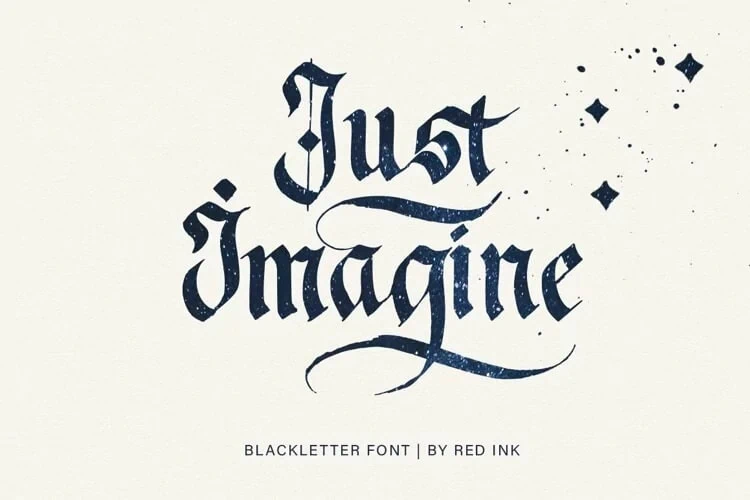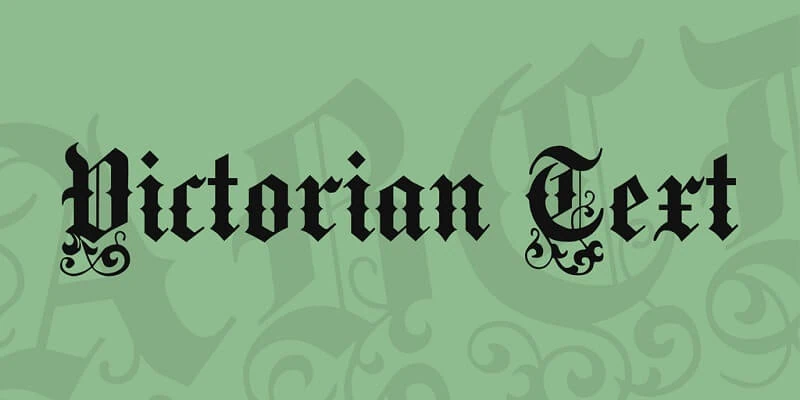
Are you looking for old english calligraphy fonts? Here are the best free and premium Old English / Gothic calligraphy fonts that’ll transport you to a bygone era.
Do you want to add a touch of vintage elegance to your designs? If so, then Old English calligraphy fonts are just what you need.
Old English fonts have been around for centuries and continue to be popular today because of their versatility. They are also referred to as blackletter or gothic fonts.
Whether you are designing for logos, invitations, tattoos, packaging, posters, or anything else that requires a touch of history and sophistication, read on to learn about the best Old English calligraphy fonts for your projects.
Best Old English Calligraphy Fonts
I spent hours testing the Old English / Gothic fonts in this list. So you can be sure that you’ll find the best font that’ll help you achieve the look you desire.
1. Stalber
Best Overall Old English Calligraphy Font
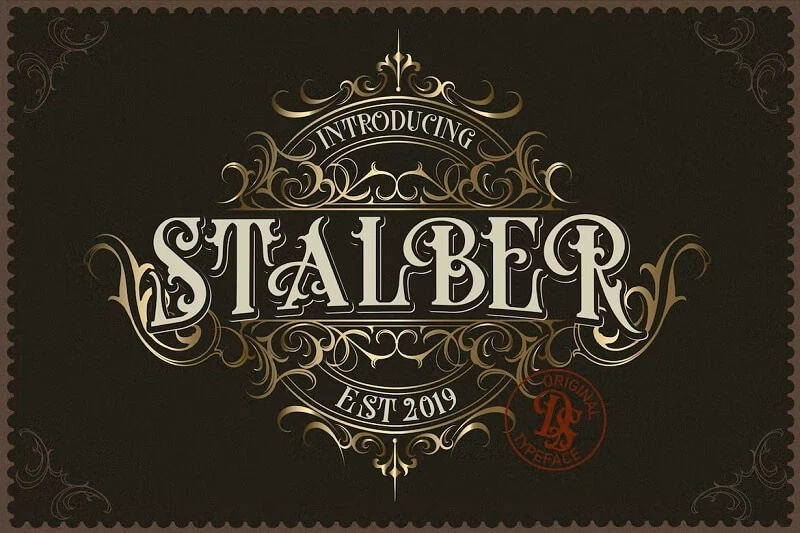
Stalber is an authentic blackletter font inspired by vintage signage and medieval decorative shapes.
The bold font has an old-fashioned charm that’ll make your designs stand out. It also includes ornaments that pair beautifully with the font.
If you want to evoke a sense of majesty in your design projects, the Stalber font is the number 1 choice.
2. Clockwork
Best Handwritten Old English Calligraphy Font
The Clockwork font is a handmade blackletter typeface combining modern and traditional typography. The stroke contrast and decorative alternates help you create classy designs for your digital and print projects.
3. Hero Beam Typeface
Best Victorian Calligraphy Font
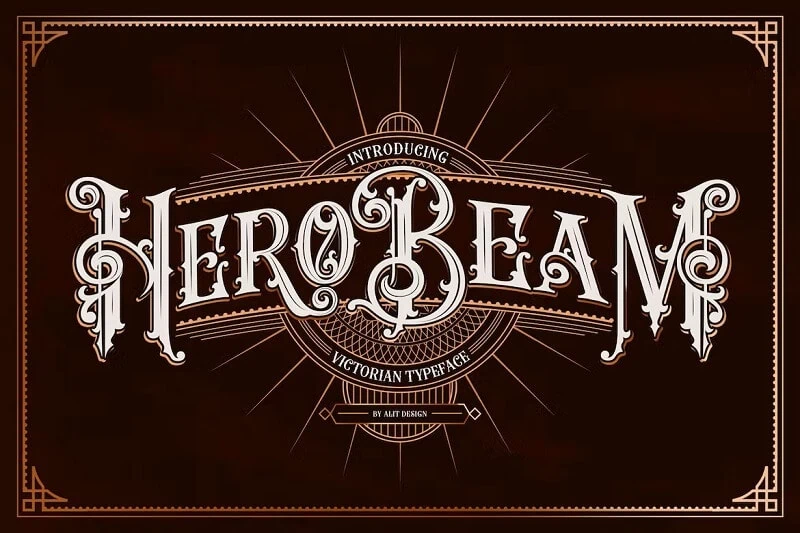
The Hero Beam font draws inspiration from the writing style of the European Empire era. The variety of stylistic alternates included in the font feature dramatic swashes and decorative terminals. So you can be sure to create captivating designs for any project.
4. Ghosthey
Best Fancy Blackletter Calligraphy Font
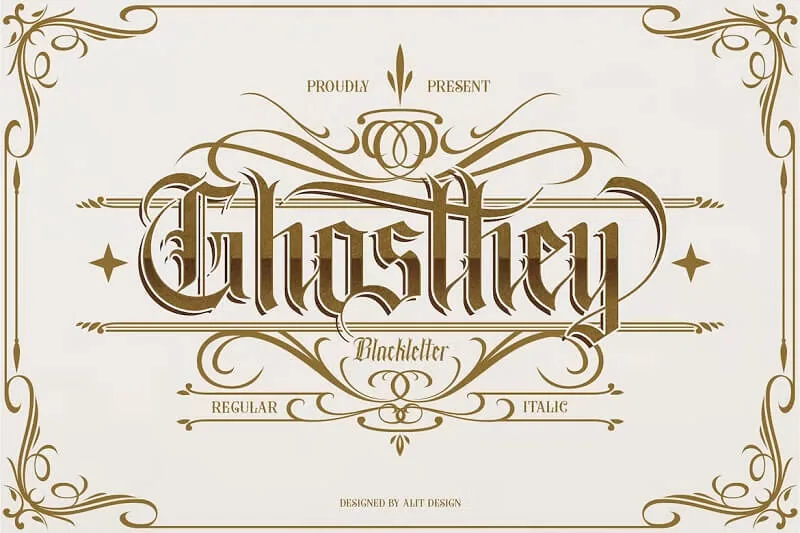
The fanciful yet strong letters of the Ghosthey font are perfect for creating distinctive designs. The blackletter typeface skillfully balances the old with the modern, so you can use it for any graphic design project, such as logos, music album covers, tattoos, and packaging.
5. Belligoes Blackletter
Best Old English Tattoo Calligraphy Font
If you are looking for a strong tattoo font that evokes a dark gothic aesthetic, then the Belligoes font is a fantastic option. It’s perfect for making logos and typography for tattoo artists and studios. The font also works excellently for vintage packaging designs.
6. The Bjorke
Best Modern Old English Calligraphy Font
Old English fonts are usually characterized by heavily stylized writing. But if you are looking for a legible and modern font, then The Bjorke font is perfect.
The thick strokes and elegant alternates of the calligraphy font are the best for creating unique logos, branding assets, book covers, and clothing designs.
7. Rusty Store
Best Elegant Gothic Calligraphy Font
Inspired by the calligraphy of the 1800s, the Rusty Store font is a fantastic option for creating charming designs. The dramatic curves of the serif font evoke a sense of tradition and royalty. Use the font for creating bold designs for your projects.
8. Brightos
Best Royal Old English Calligraphy Font
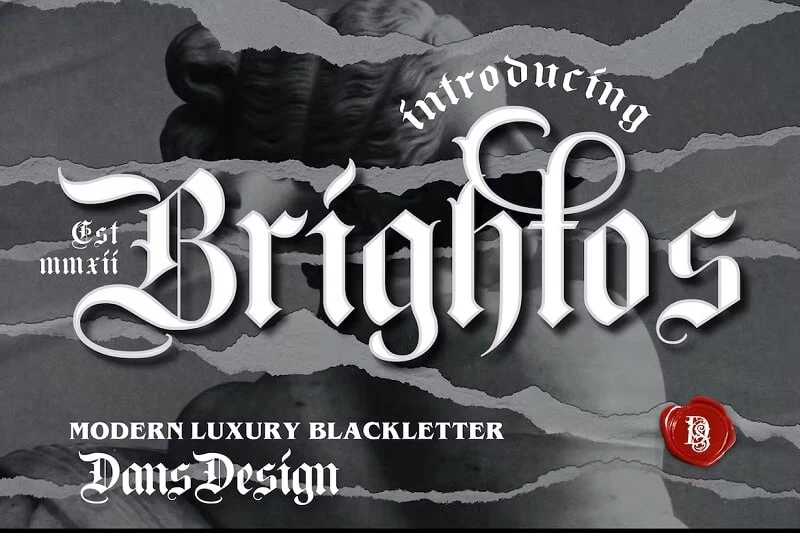
The Brightos font’s elegant strokes and gorgeous accents will elevate any project to the next level. It’s great for designing everything from product logos and business cards to packaging, and it is also suitable for making stylish tattoo designs.
9. Forges
Best Decorative Old English Calligraphy Font
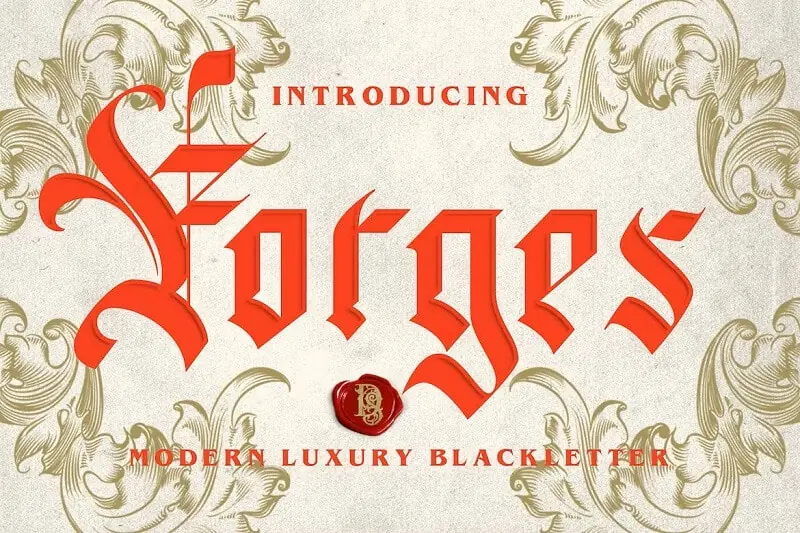
Does your project need to communicate a sense of majesty? Look no further than the Forges font. The modern typeface is perfect for creating luxury logos, packaging, invitations, posters, and brochures.
10. Grandice Blackletter
Best Simple Gothic Calligraphy Font
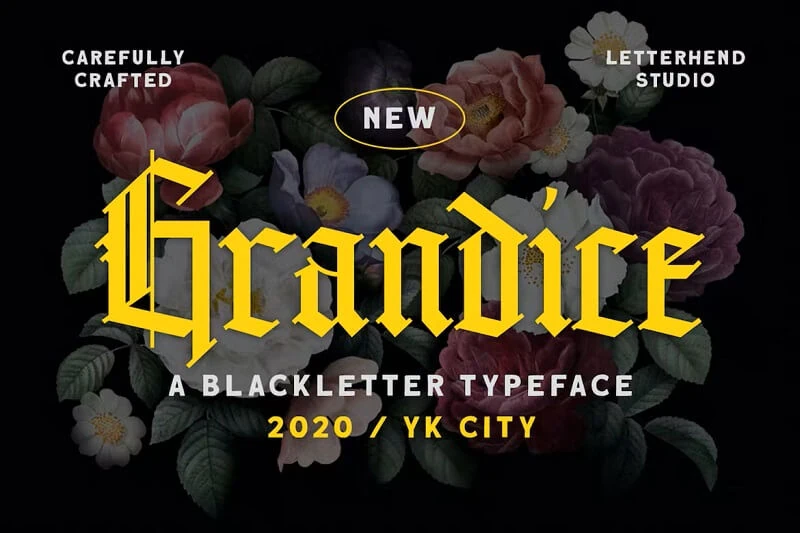
If your design involves serious and dark themes, consider the Grandice font. The gothic typeface features bold characters, making it a perfect choice for logo, fashion, and advertising projects.
11. Bugenvil
Best Luxury Calligraphy Font with Swashes
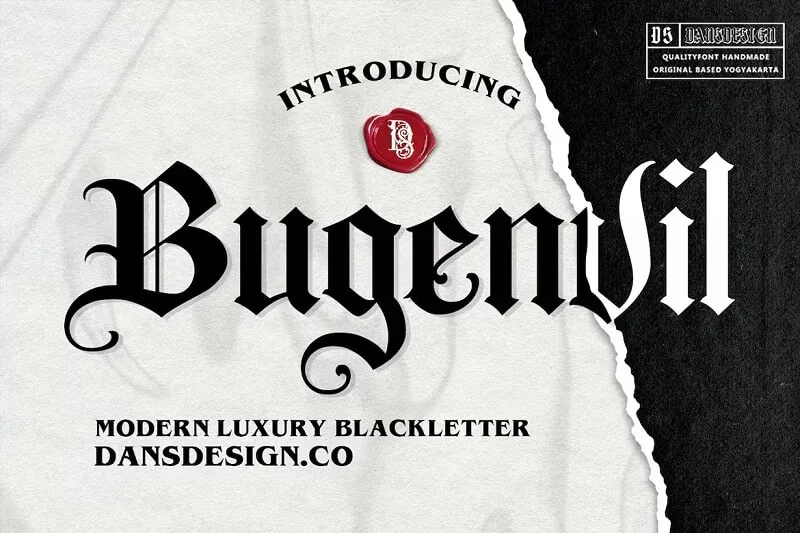
The Bugenvil font masterfully combines the old with the new to help you create bold gothic designs. The authentic blackletter font is perfect for creating everything from tattoos to branding assets.
12. Bahud Aroyek
Best Old English Calligraphy Font with Swirly Alternates
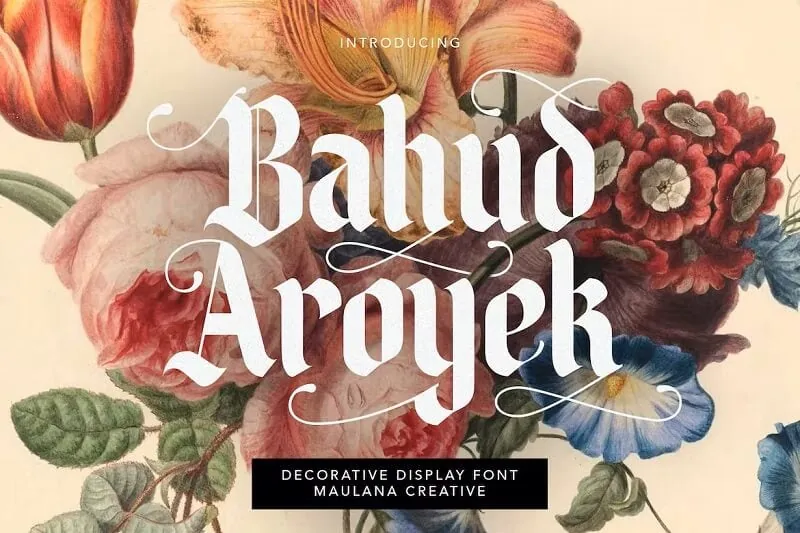
Add a touch of elegance and mystery to your designs with the Bahud Aroyek font. The whimsical calligraphy font features delicate swirls and is suitable for everything from wedding invitations to logos and more.
13. Volantis Vintage
Best Classic Old English Font
If you are looking for a Franktur font that’ll help you create vintage designs, the Volantis font is perfect. The bold letters and distinct styling will elevate your creative projects to the next level.
The fonts feature dramatic letters with elaborate decorations, which give them an old-world charm and elegance.
How to use Old English Calligraphy fonts?
Old English calligraphy fonts are centuries old, but they have evolved to suit the needs of this day and age.
Due to their timeless appeal, Old English calligraphy fonts are still widely used to make:
- Logos
- Invitations
- Tattoos
- Signage
- Book Covers
- Posters
- Brochures
- Web Design Elements
- Music Album Covers